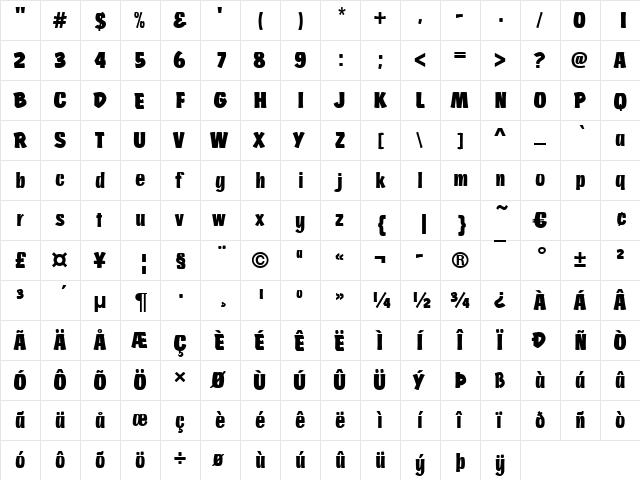
ChurchwardBru Becker Reg Regular
Design Context for ChurchwardBru Becker Reg Typeface
ChurchwardBru Becker Reg is a composed and adaptable typeface that performs quietly and consistently across a wide range of design contexts.